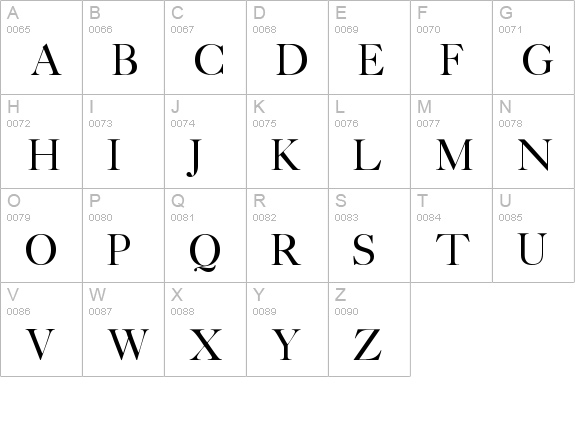
Patricianâ„¢ Font Details
Introducing Patrician™ font, a timeless typeface that exudes elegance and sophistication. Crafted with meticulous attention to detail, Patrician™ embodies a perfect balance between traditional and modern design elements. Its graceful curves and delicate serifs add a touch of refinement, making it an ideal choice for projects that require a touch of class. With its versatility, Patrician™ is perfect for a wide range of applications, from invitations and wedding stationery to branding and advertising materials. Its legibility ensures that every word is effortlessly conveyed, while its unique personality adds a sense of character to any design. One of the most remarkable aspects of Patrician™ is that it is freely available to download at FontsMarket.com. This means that you can enhance your designs with this exquisite font without any cost. Offering both uppercase and lowercase letters, numerals, and an extensive set of punctuation marks, Patrician™ provides all the tools you need to create stunning typographic compositions. Whether you are a professional designer or a creative enthusiast, Patrician™ font is sure to become an invaluable addition to your font library. Its timeless beauty and versatile nature make it a reliable choice for any project, from classic to contemporary. Download Patrician™ today at FontsMarket.com and elevate your designs to new heights of sophistication and elegance.